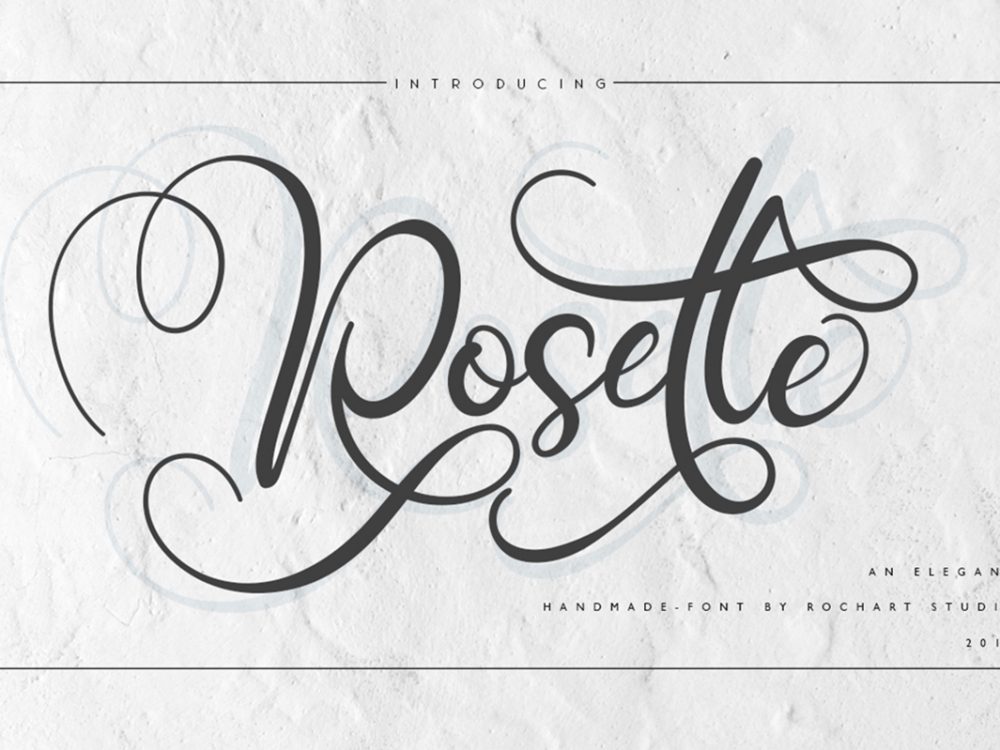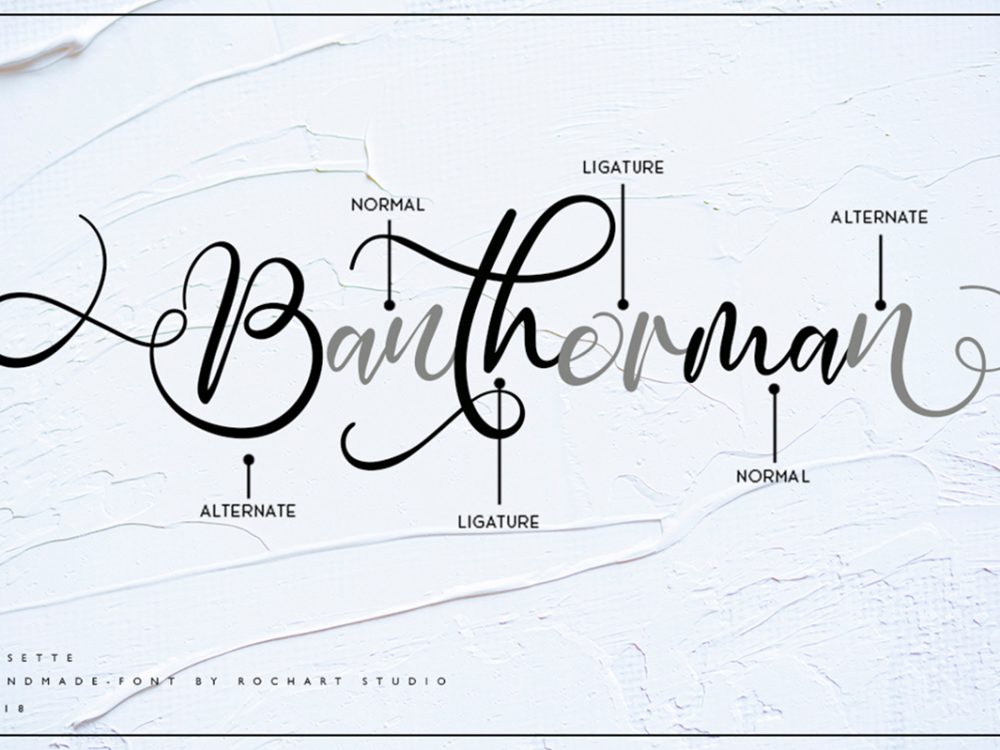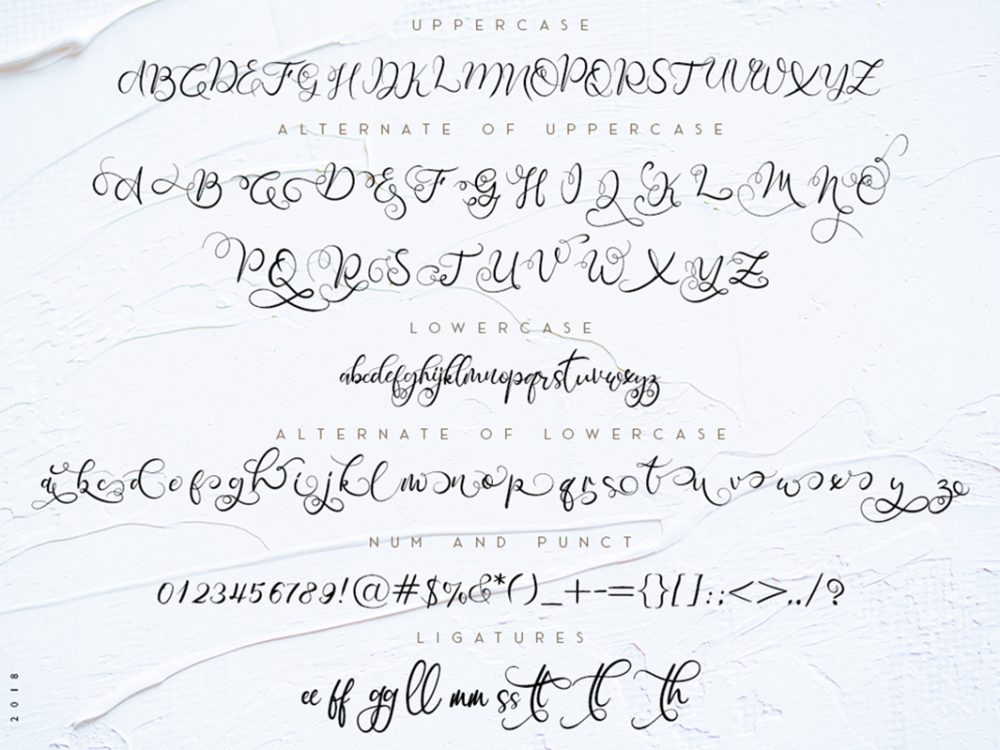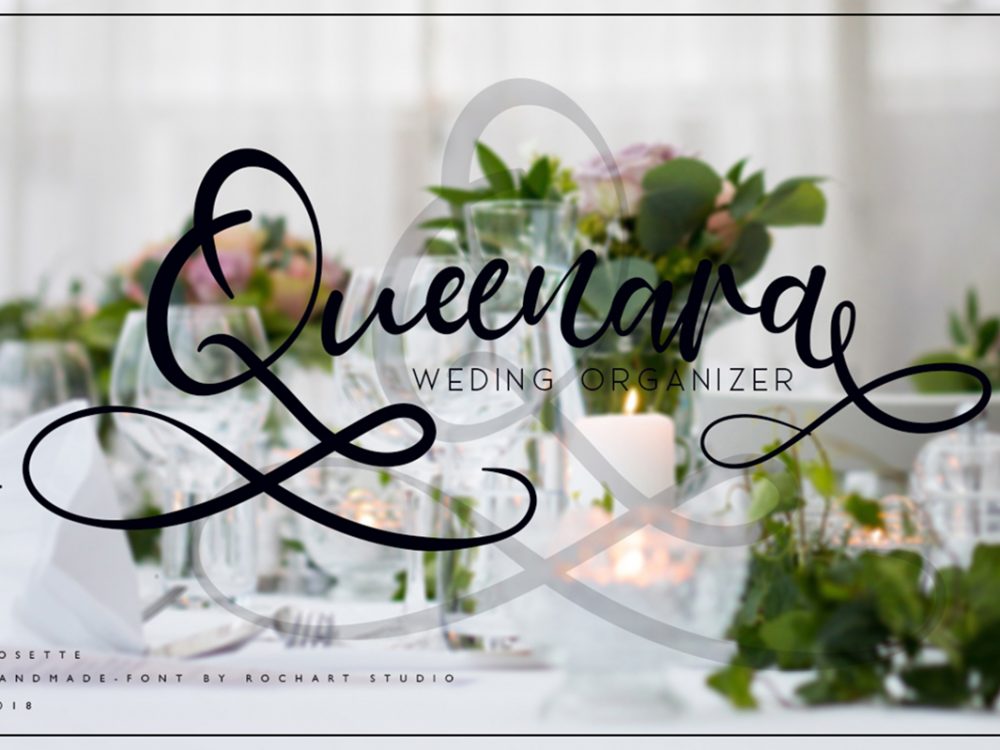
Rosette Free Font
Rosette Free Font is an interesting elegant handwritten font that features a modern calligraphic style among other fonts. This font is very well suited for various projects that require a scripted modern curly handwritten font. Use this font to create branding projects, logos, wedding designs, social media posts, advertisements, product packaging, product designs, label, photography, watermark, invitation, stationery, and more. If you like it don’t forget to check out the full version.